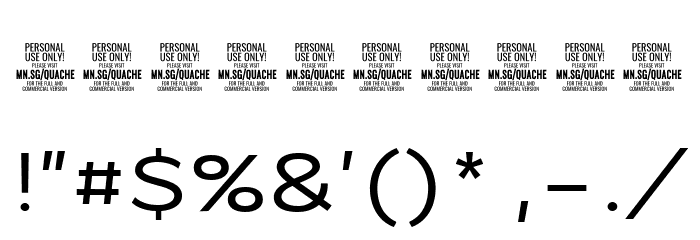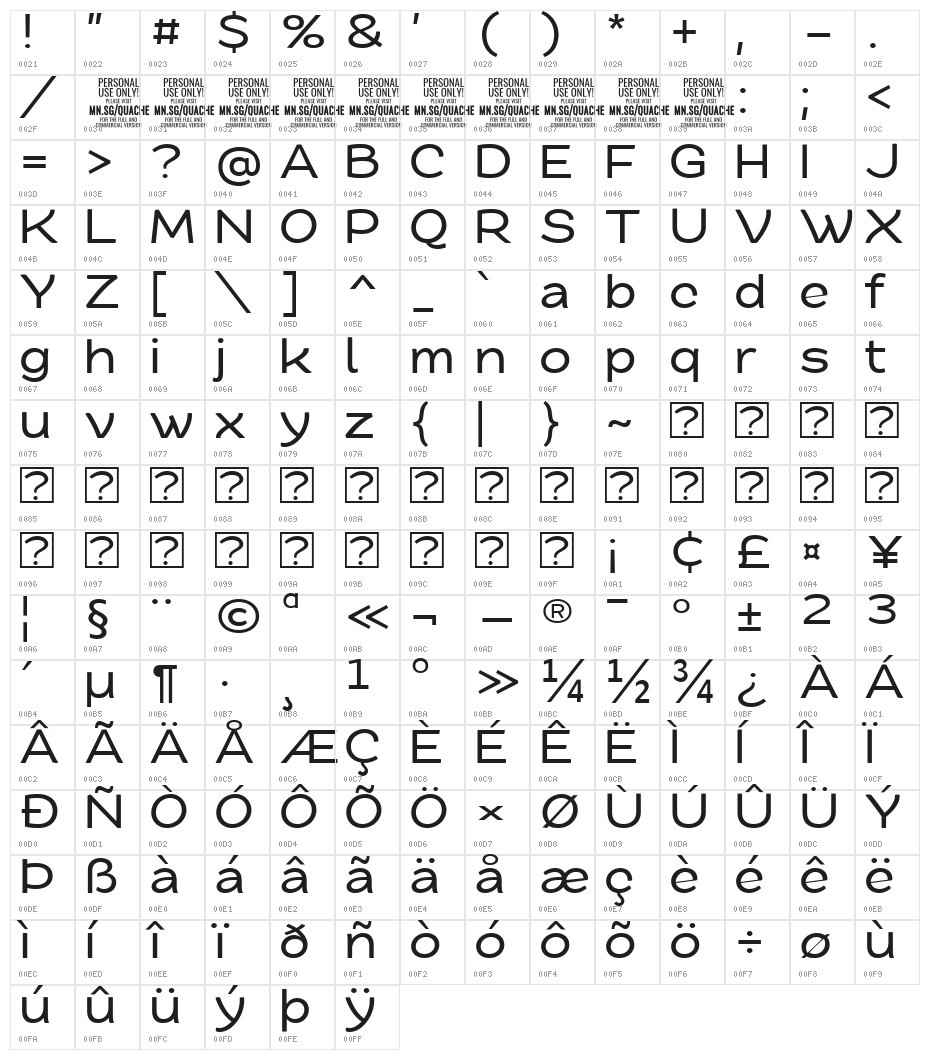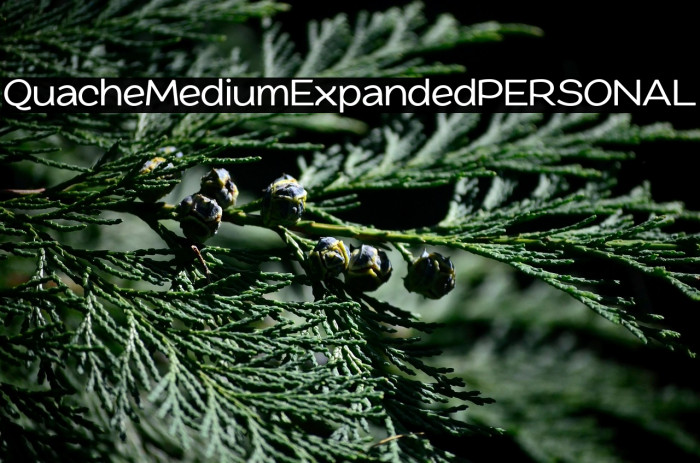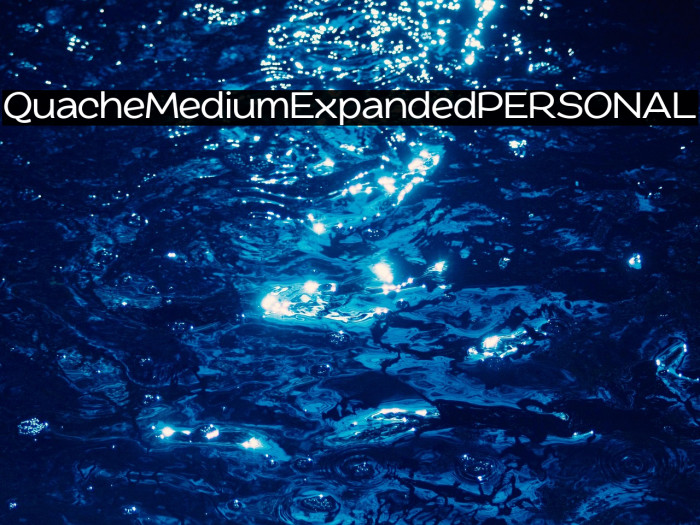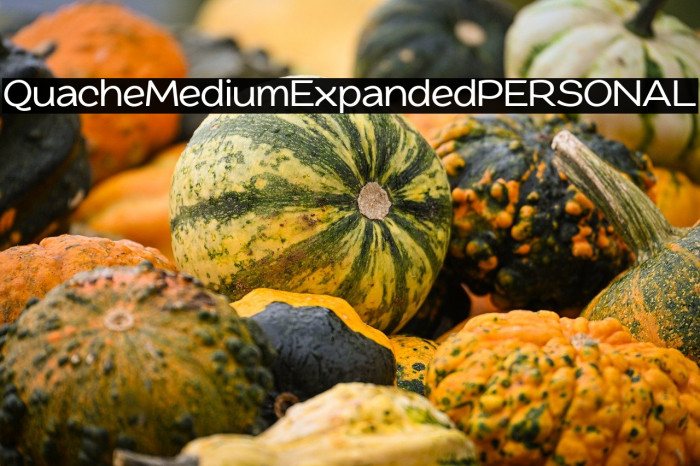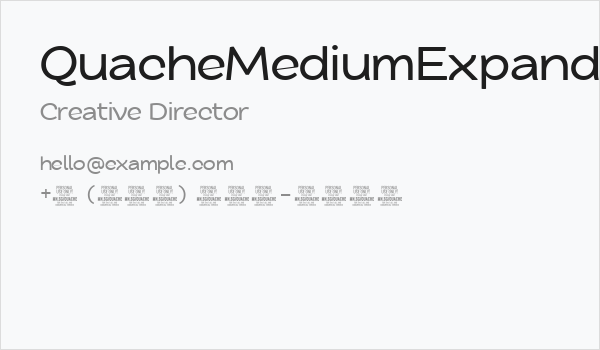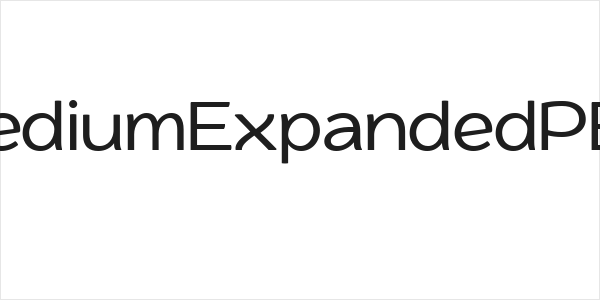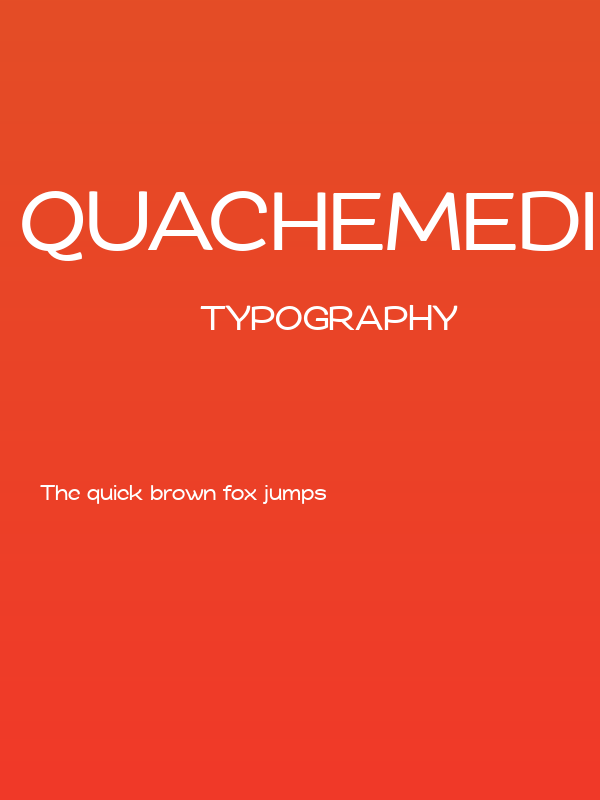
QuacheMediumExpandedPERSONAL Font
QuacheMediumExpandedPERSONAL Description
This font features a clean and modern sans-serif design with a medium weight and expanded width. The characters are well-balanced with a consistent stroke width, offering a harmonious and legible appearance. The uppercase and lowercase letters maintain a uniform style, while the numerals and special characters complement the overall aesthetic. The font's expanded width provides a spacious feel, making it suitable for various design applications. Its simplicity and clarity make it versatile for both digital and print media.
| Proposed Projects | Ideal for branding, advertising, website headers, and editorial design. |